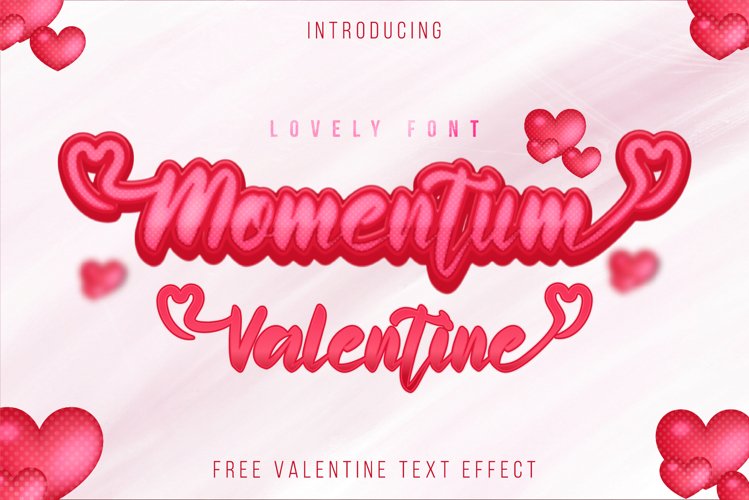
Momentum Valentine - lovely font is a callygraphy and modern font. Momentum Valentine : perfectly suited for traditional media and the web. great for the logo, banner, poster crafter and graphic artists. compatible with all tools. its playfulness makes it great for creative project., be inspirational wall poster, or for communicating your brand.